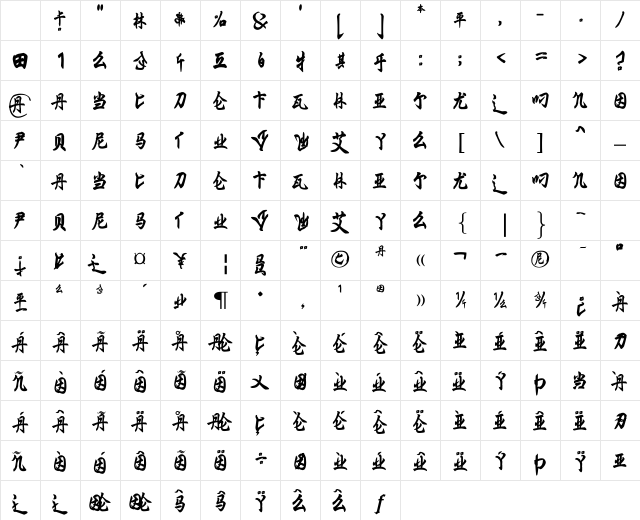
Complete Ming Imperial Love glyph index. Displaying only characters natively supported by Ming Imperial Love font.
Ming Imperial is a composed and adaptable typeface that performs quietly and consistently across a wide range of design contexts.